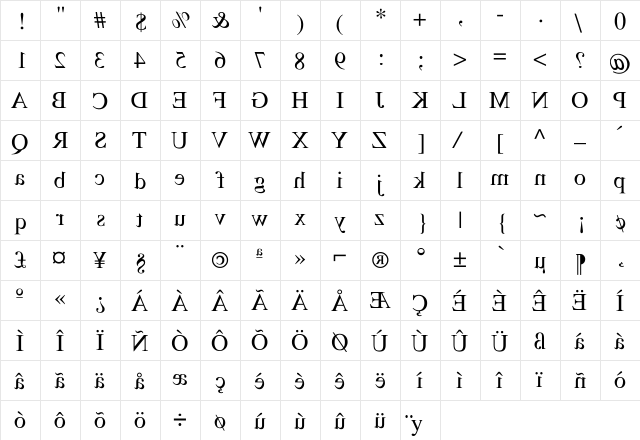
Miror-Mirror Regular
Design Context for Miror-Mirror Typeface
Miror-Mirror offers clean, dependable letterforms without strong stylistic allegiance, making it a practical choice for designers who need flexibility.
Pro Tip: Use Miror-Mirror in both headline and body roles to test its range before committing to a single application.